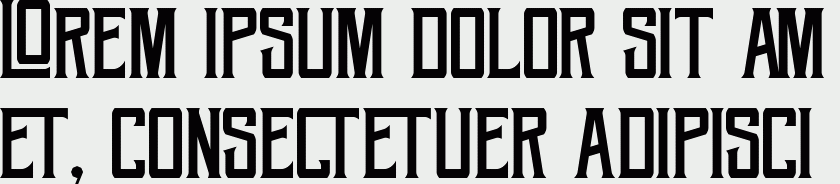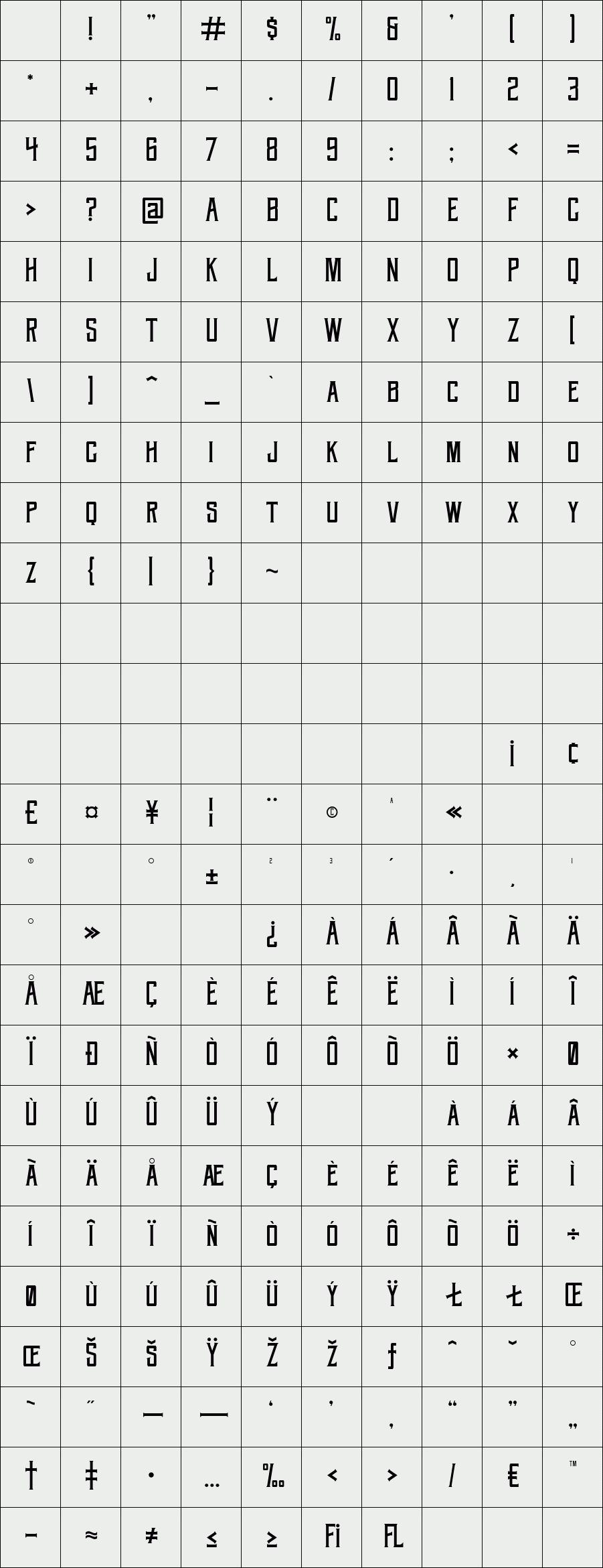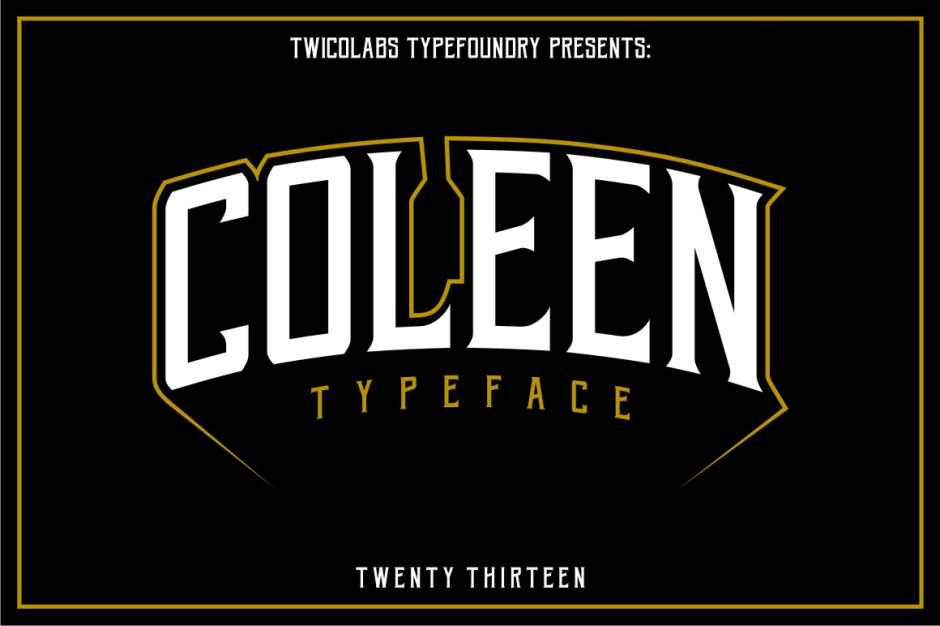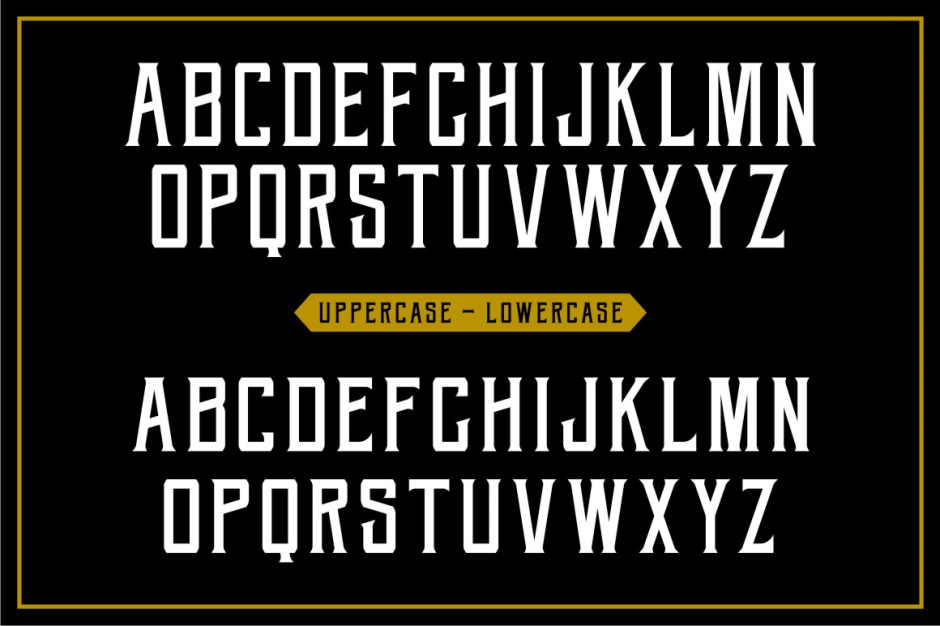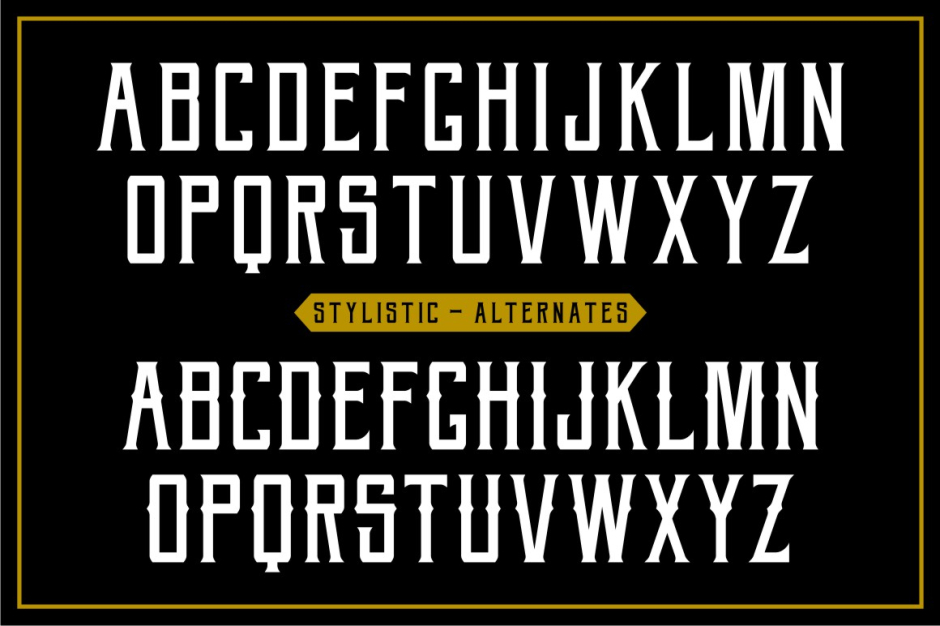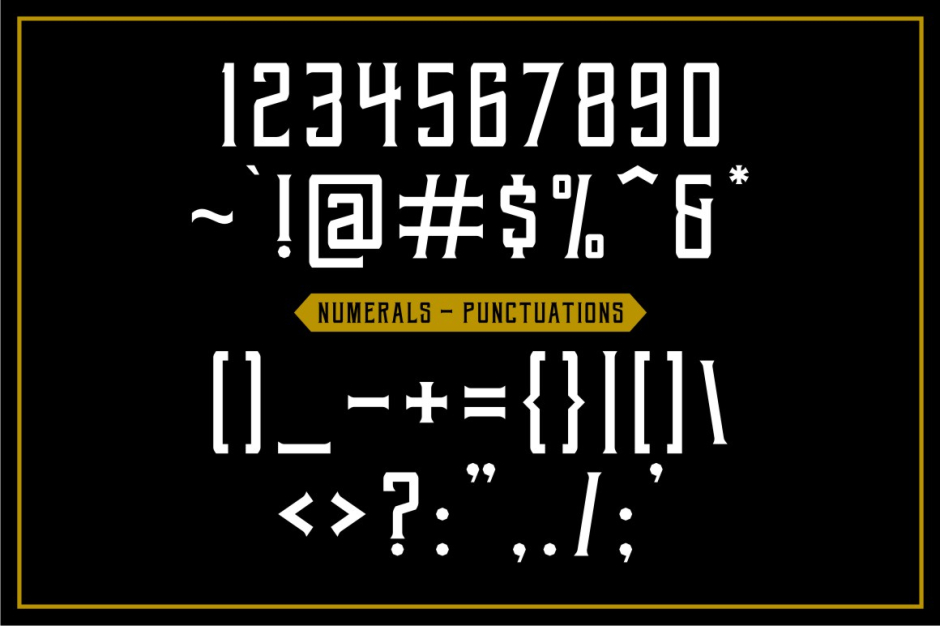
Coleen
Coleen is a condensed serif with font / typeface, inspired from the letters in old classic wine / liquor labels.
Suits best for classic / vintage design theme, wine / beer labels, letterheads, headlines, etc.
Available uppercase, lowercase, numerals, punctuations and OpenType features (stylistic sets, alternates and lots of ligatures - all features available in lower and uppercase).